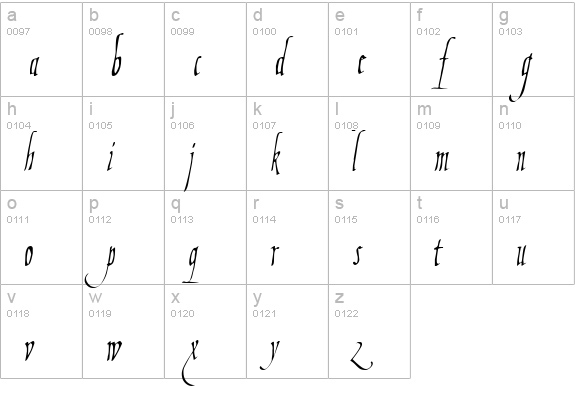
Fiorenza Font Details
Fiorenza font is a beautifully crafted typeface that exudes elegance and sophistication. With its graceful curves and delicate serifs, Fiorenza is perfect for adding a touch of refinement to any design project. Whether you're working on a wedding invitation, branding materials, or elegant packaging, Fiorenza will elevate your work to the next level. What sets Fiorenza font apart is not just its timeless design, but also the fact that it is available for free. That's right - you can download this stunning font at FontsMarket.com without spending a dime. This makes it accessible to a wide range of designers and creatives who are looking to enhance their projects with a touch of class. Fiorenza font comes in a variety of weights and styles, allowing you to mix and match to create the perfect look for your project. Whether you prefer a bold statement or a more subtle touch, Fiorenza has you covered. So why wait? Download Fiorenza font today and take your designs to the next level with this elegant and versatile typeface.